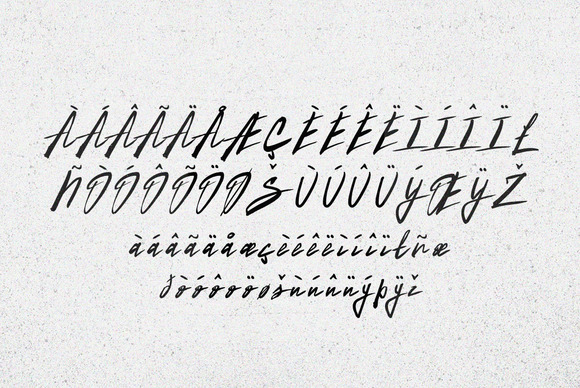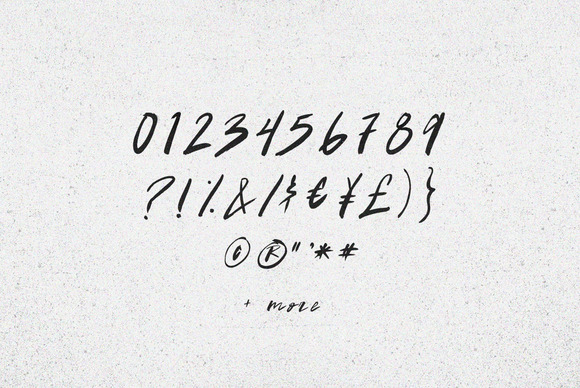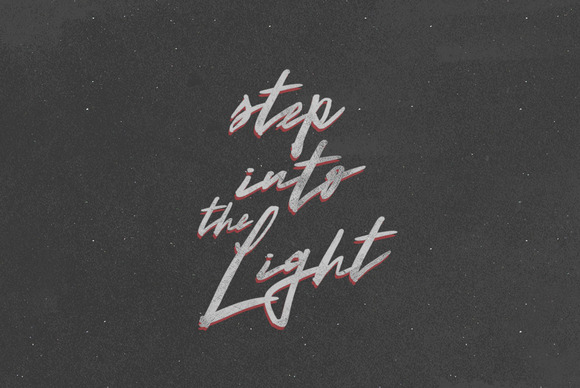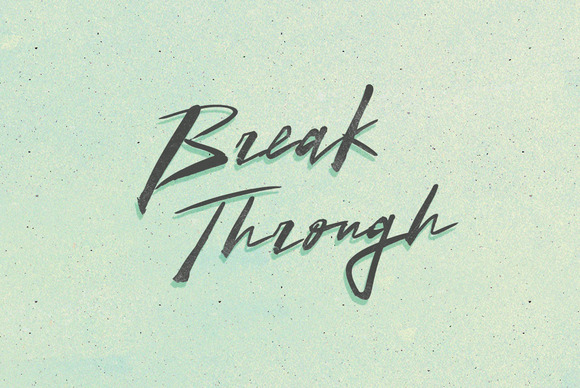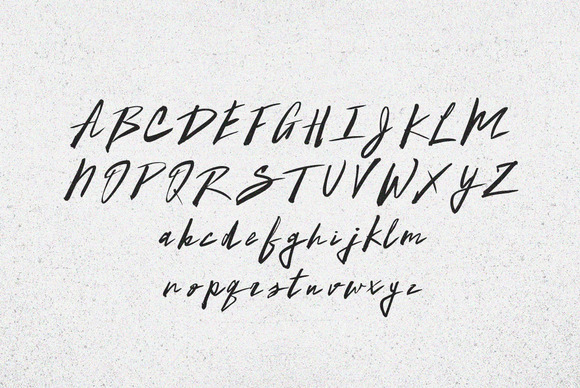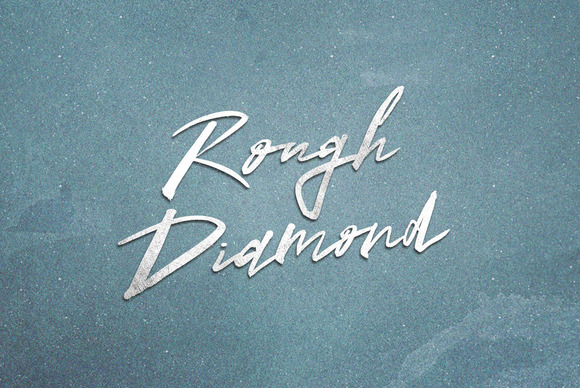
Rough Diamond Font
It’s characteristic lustre pearled out and hidden by cuts nobody made. A Rough Diamond drawn whole from the earth by pain hardened hands, a surprising bit of pressure hardened carbon.